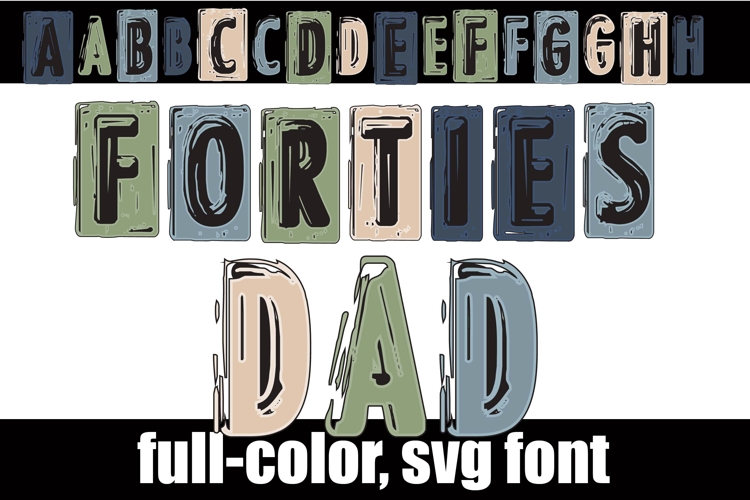
Forties Dad Color Font
This full-color, sans serif font looks like the metal imprints automobile plates are made from. There is a full alt case of both upper and lowercase letters in an additional color that you can access through your system's character map.